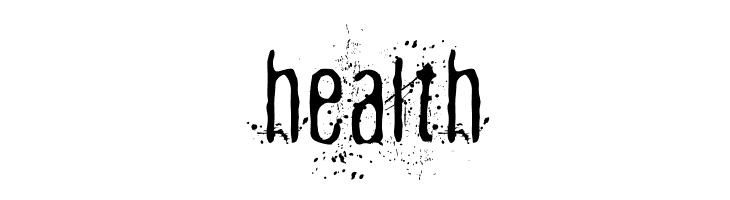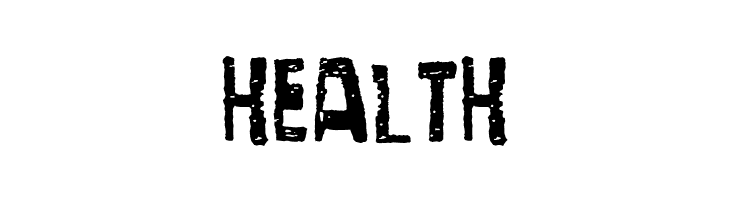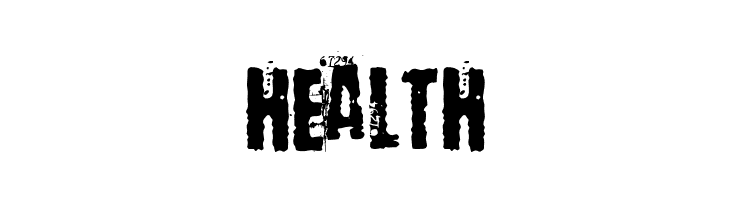
A distressed, grunge-style font with elongated, narrow characters and a hand-drawn look.
A bold, distressed font with a rugged, vintage appearance.
A bold, distressed font with a vintage and rugged appearance.
A bold, Gothic-inspired font with ornate detailing and a dramatic flair.
A bold, distressed font with a cracked, vintage texture.
A bold, outlined font with a modern, eye-catching design.
A bold, distressed font with a rugged, vintage appearance.